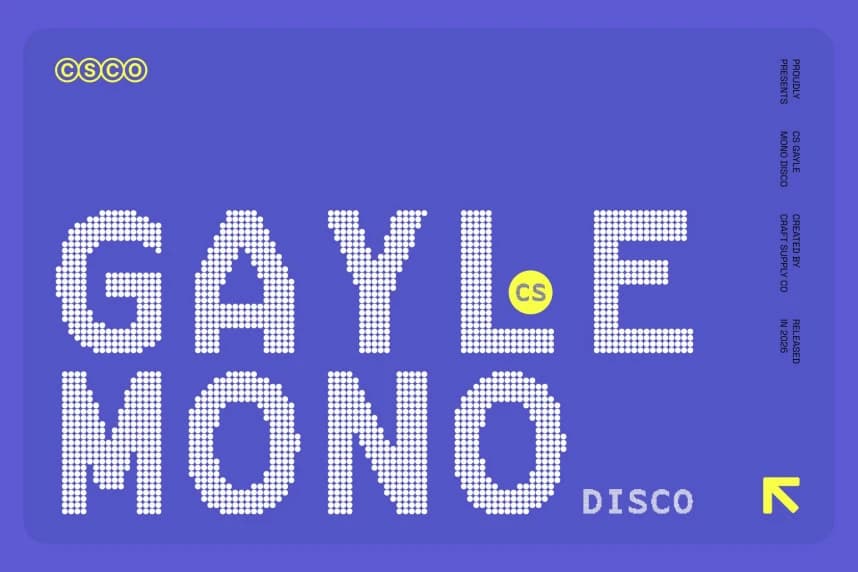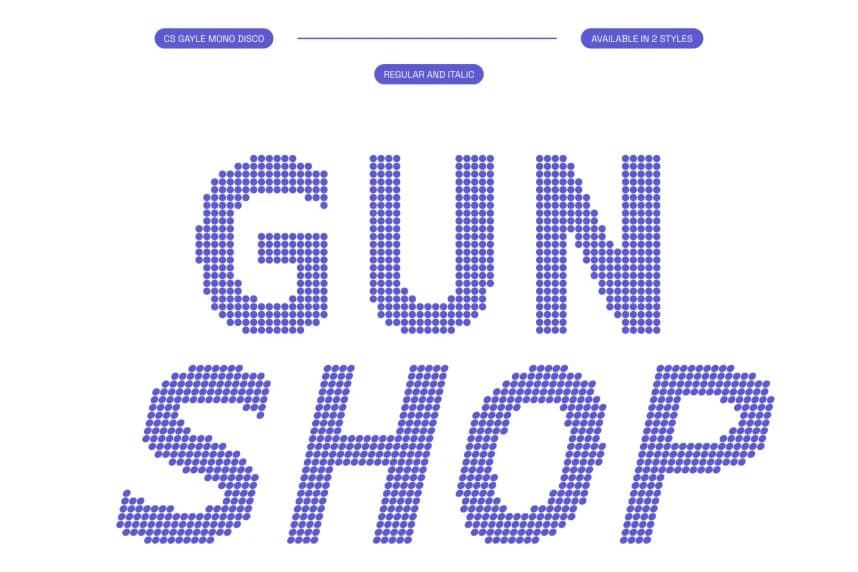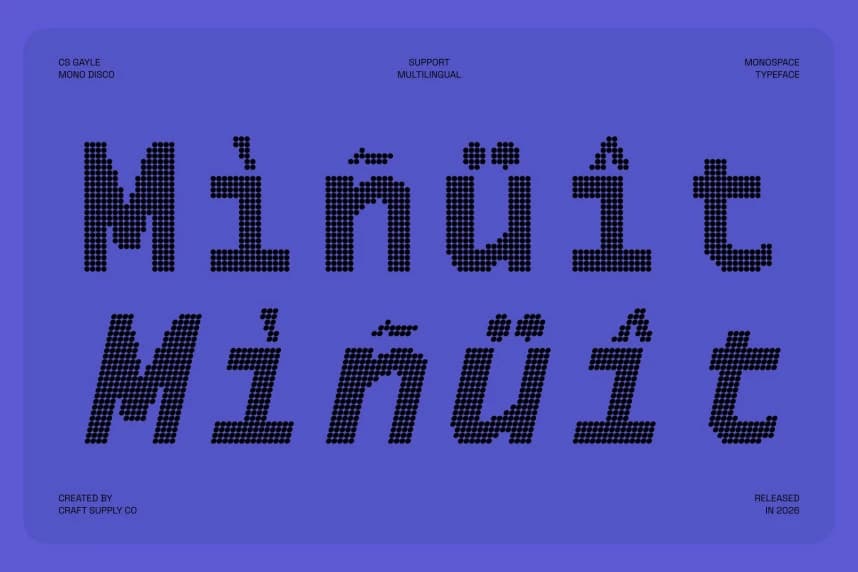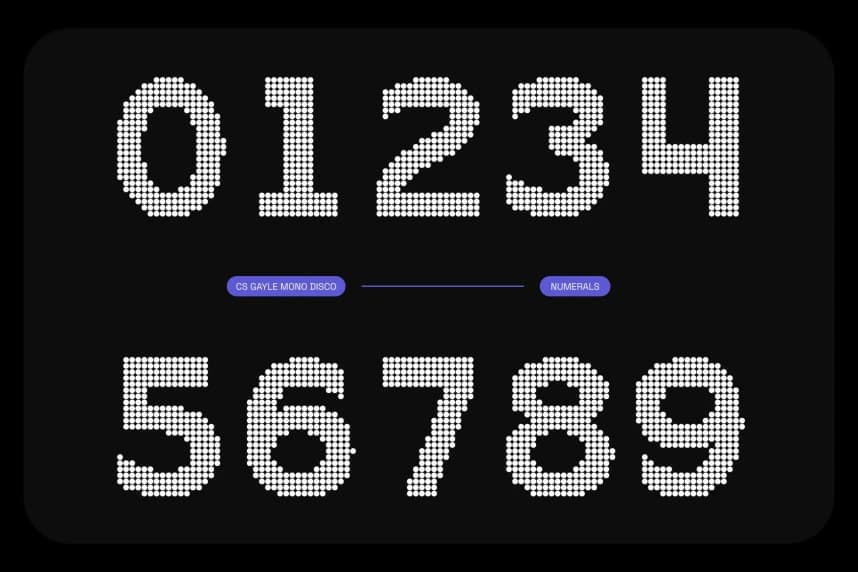
CS Gayle Mono Disco Font
CS Gayle Mono Disco Font – Sans Serif Typeface with Clean Precision and Retro-Tech Energy Simplicity and Clarity with Disco Rhythm This is a modern monospaced sans serif typeface defined by clarity